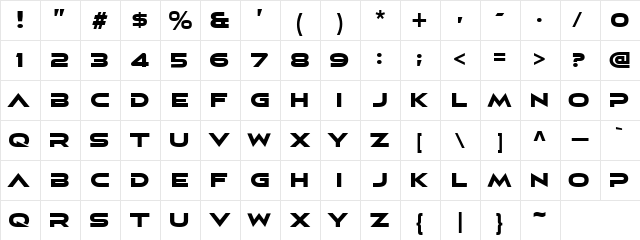
elasis Regular
Design Context for elasis Typeface
elasis offers clean, dependable letterforms without strong stylistic allegiance, making it a practical choice for designers who need flexibility.